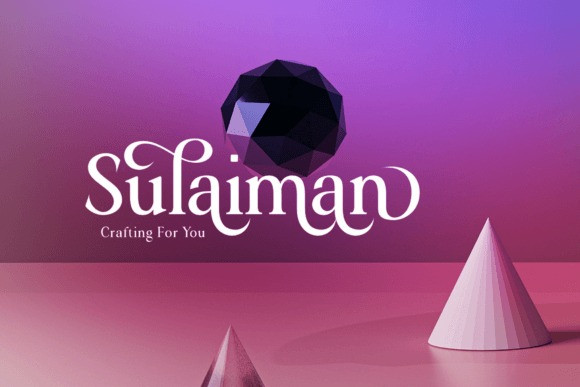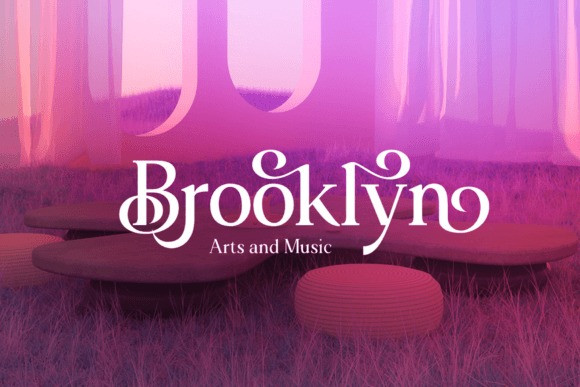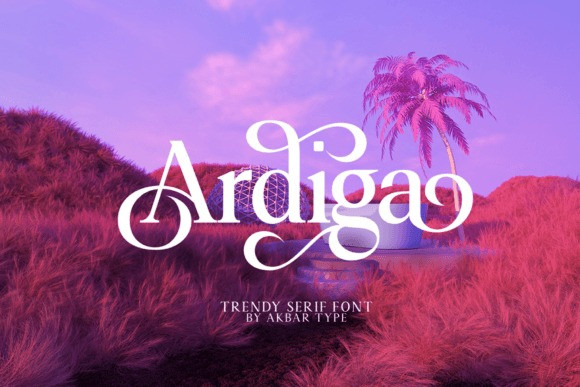
Ardiga Font
Ardiga Serif Font is an elegant and unique serif font that uses swash and various alternates letters. Perfect for adding a unique twist to word-mark logos, monograms, or pull quotes. This font is PUA encoded, which means you can access all of the glyphs and swashes with ease!